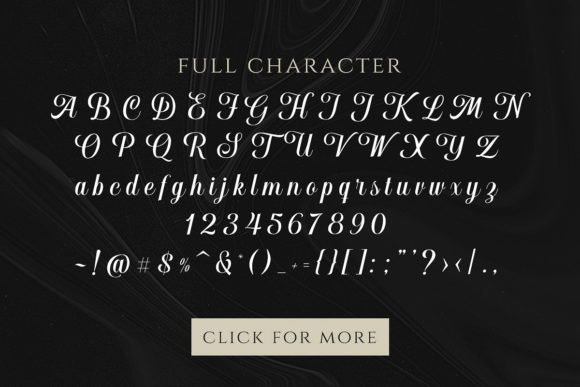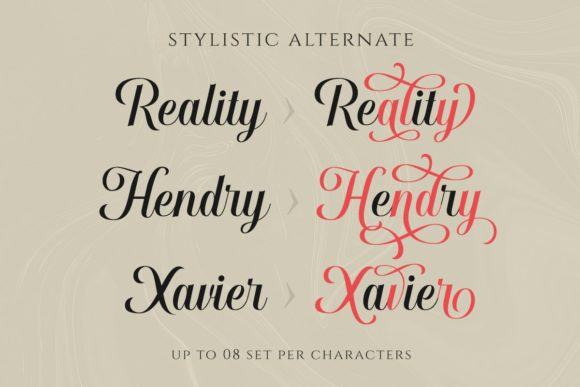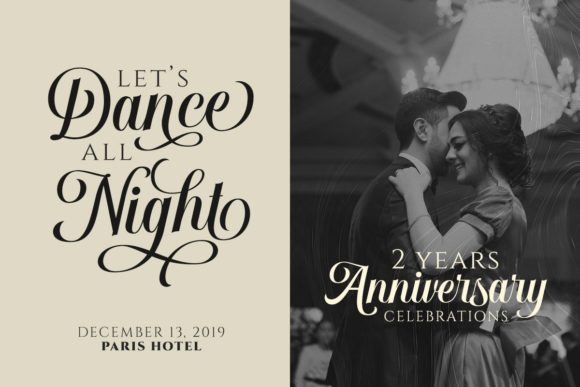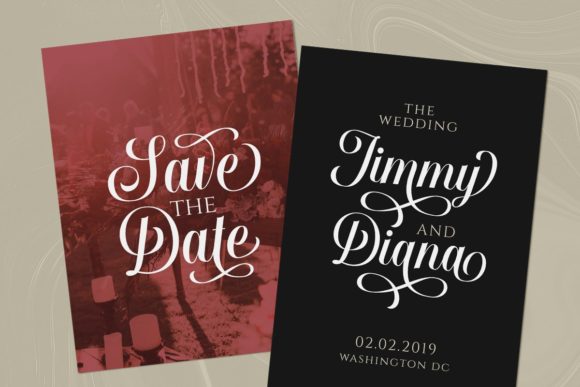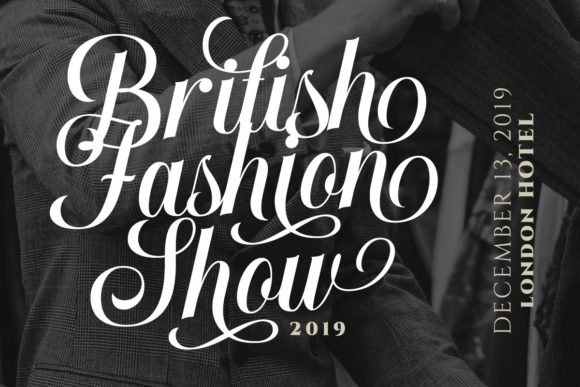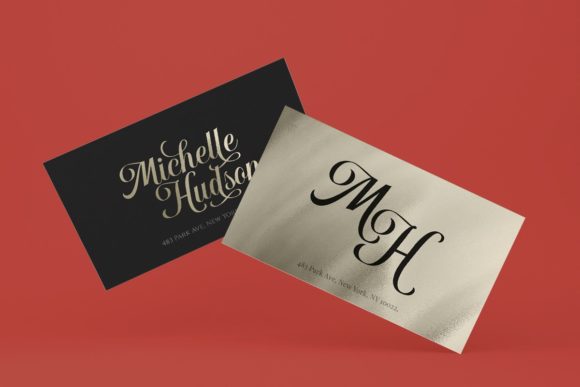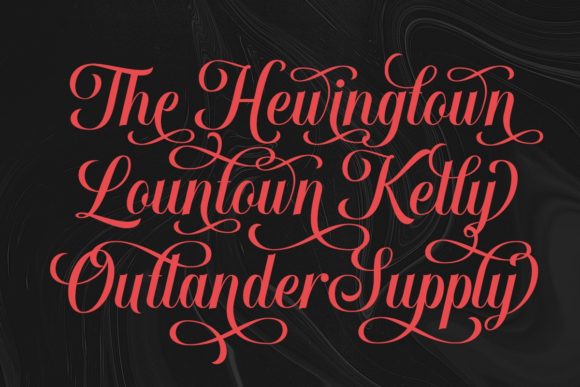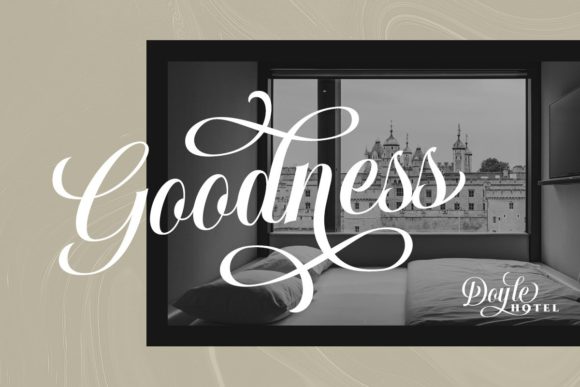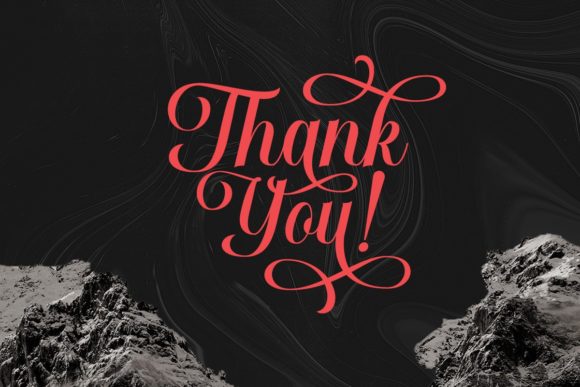
HomeScript FontsHougbon Font Script Fonts Hougbon Font FacebookXPinterestWhatsApp Hougbon Font Poster 2 Hougbon Font Poster 3 Hougbon Font Poster 4 Hougbon Font Poster 5 Hougbon Font Poster 6 Hougbon Font Poster 7 Hougbon Font Poster 8 Hougbon Font Poster 9 Hougbon Font Poster 10 About Hougbon Font Hougbon is a lovely script font with charming appeal. It will add a romantic touch to any crafting project. DOWNLOAD NOW People also explored Galleon Font True Love Font Realism Font Thanksgiving Amanda Enchanting Font Fallestine Font Young Style Font Karline Font Cakiss Font 273 0 TagsHougbon Font Previous articleMurphy FontNext articleHillstown Font LEAVE A REPLY Cancel reply Comment: Please enter your comment! Name:* Please enter your name here Email:* You have entered an incorrect email address! Please enter your email address here Website: Save my name, email, and website in this browser for the next time I comment. Personal Use Free Rare Knuckle Personal Use Free Read more about this font Cranberry Gin Personal Use Free Read more about this font Laneway Personal Use Free Read more about this font Sathscha Personal Use Free Read more about this font BLOG How to Install and Use Fonts on Windows, macOS, and Web Projects How to Install and Use Fonts on Windows, macOS, and Web Projects Fonts are a crucial part of design and branding. Whether you’re designing a... Where to Buy American Fonts Online in 2024 5 Fonts That Will Dominate Design Trends in 2026 Top 10 Handwritten Fonts That Elevate Your Designs